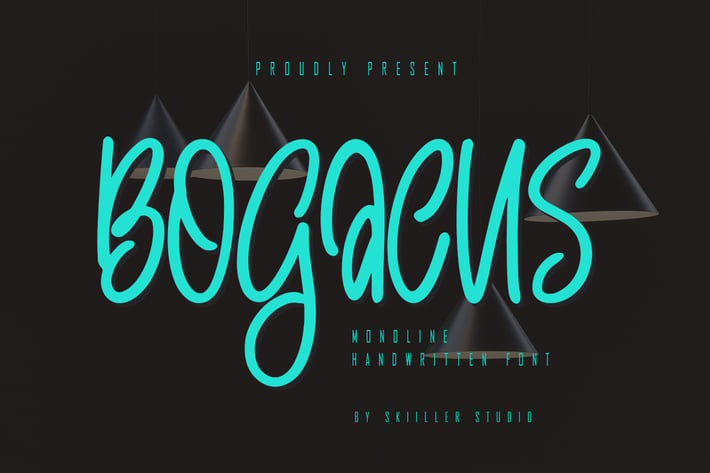
Bogacus - Monoline Handwritten Font
Bogacus is a modern paint brushed handwritten font, crafted to give your headlines and logotype projects a stylish touch. This font reads as strong, confident, and dynamic and can add tons of urban character to your designs.